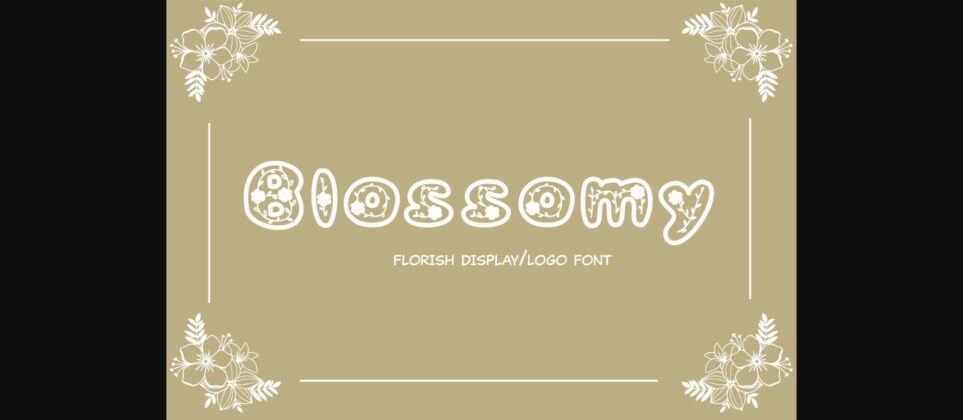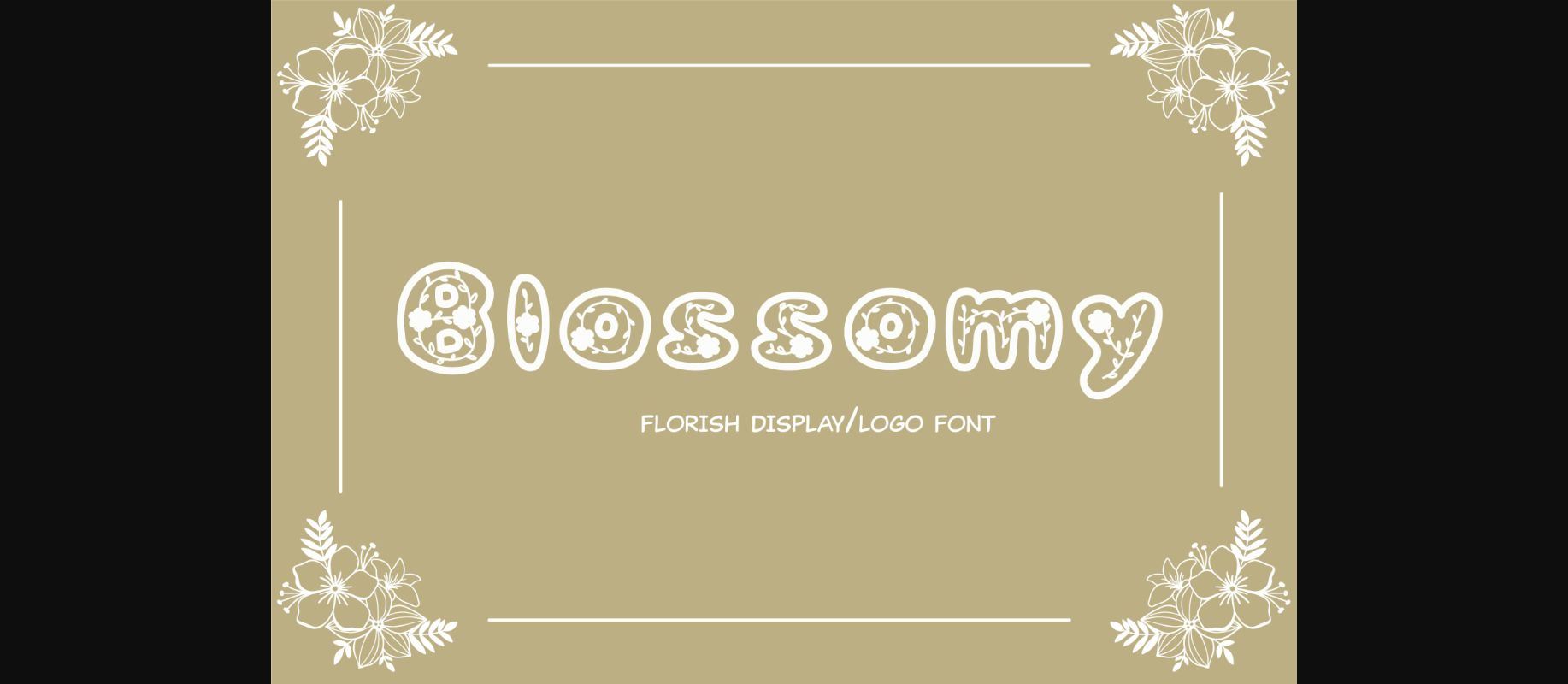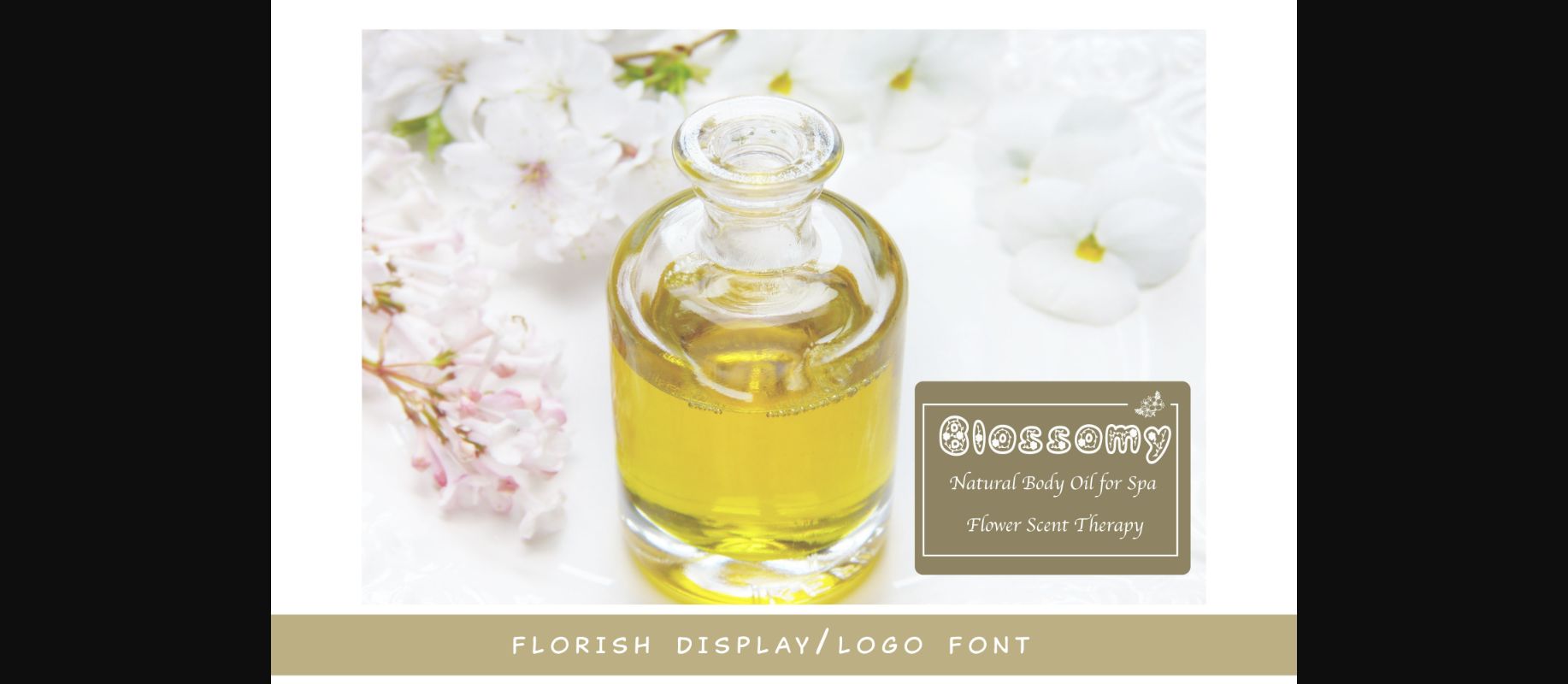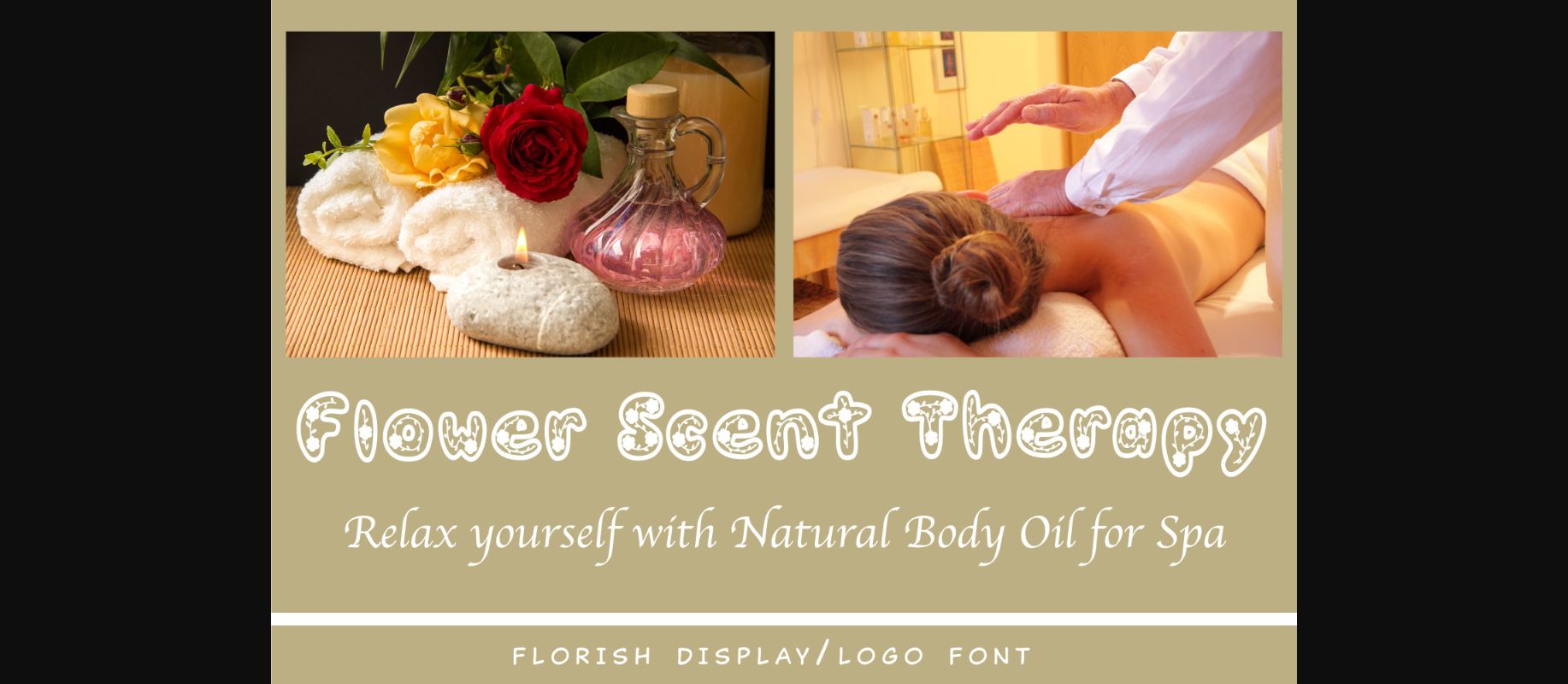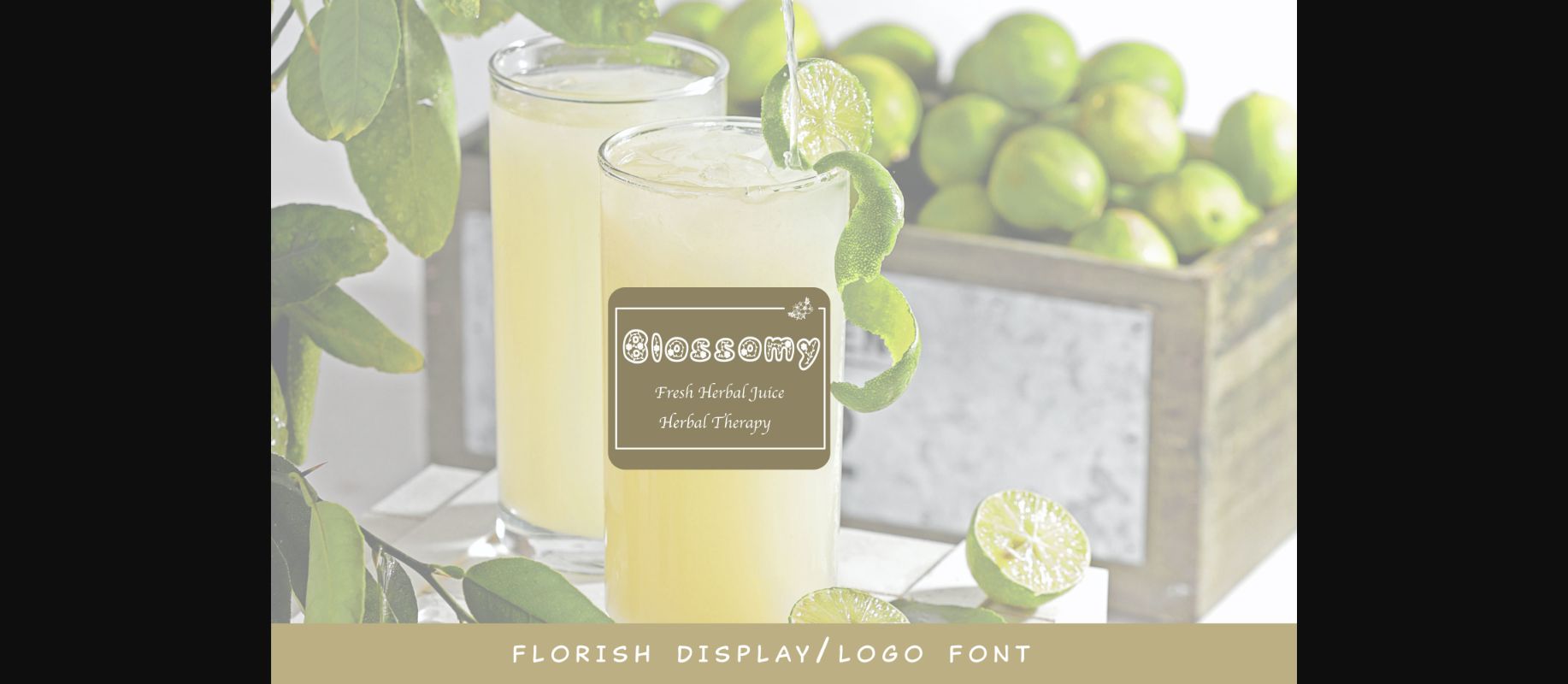
Blossomy Font
About Blossomy Font
Blossomy is a cute, flowery and friendly decorative font. Expertly designed to make your creation look out of this world, this font will look gorgeous on a variety of ideas.